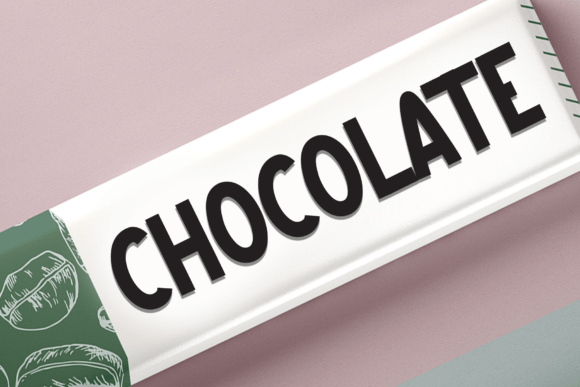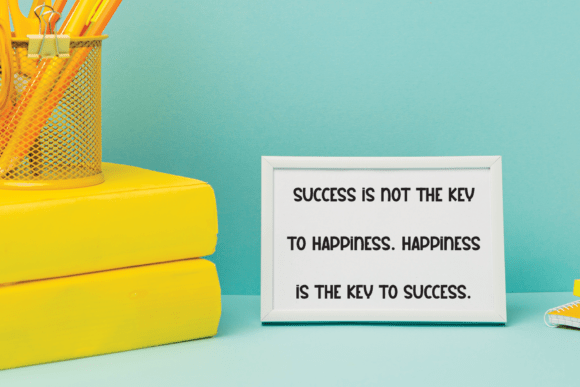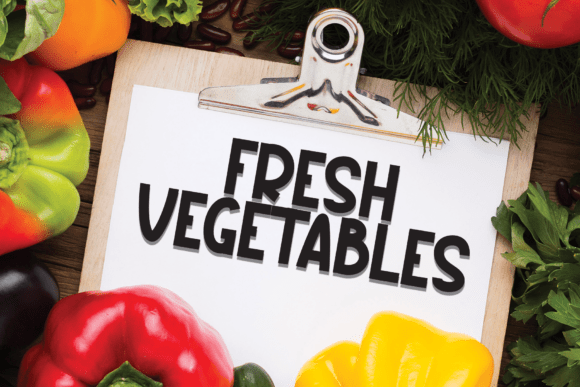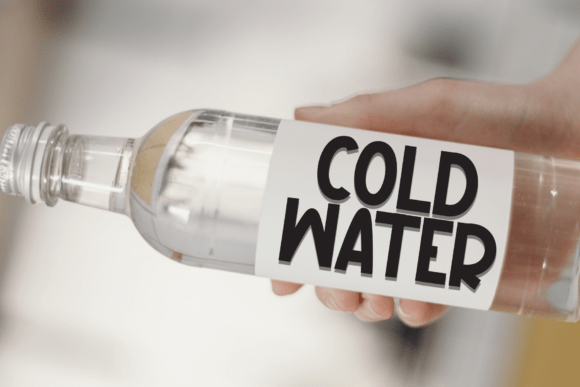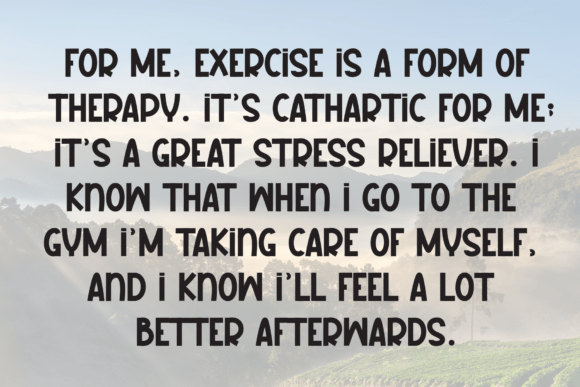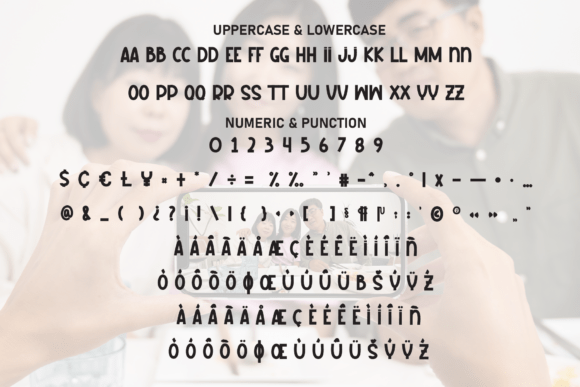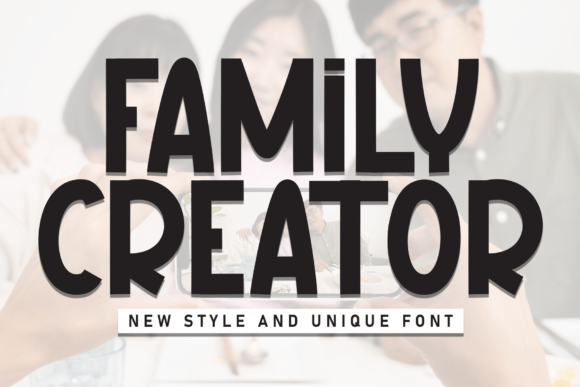
Introducing Family Creator Font: The Perfect Blend of Bold, Playful, and Modern
Are you tired of using the same old fonts for your design projects? Look no further! Family Creator Font is here to revolutionize the way you create and add a touch of personality to your designs. This bold and playful font is perfect for designers, crafters, and DIY enthusiasts who want to add a warm and inviting tone to their projects.
What Makes Family Creator Font Stand Out?
Family Creator Font boasts a clean cut and modern vibe that sets it apart from other fonts. Its chunky characters and upright stance make it perfect for headlines, posters, family scrapbooks, YouTube thumbnails, or any project that needs a bold and eye-catching font. The unique vertical style adds a sense of personality and originality to your designs, making them truly stand out.
Family Creator Font is a versatile font that can be used for a wide range of design projects. Here are some ideas to get you started:
• Headlines and Posters: Use Family Creator Font to create bold and eye-catching headlines and posters that grab attention.
• Family Scrapbooks: Add a personal touch to your family scrapbooks with this warm and inviting font.
• YouTube Thumbnails: Create thumbnails that stand out and entice viewers to click on your video.
• Crafting and DIY Projects: Use Family Creator Font to add a touch of personality to your crafting and DIY projects, such as signs, cards, and gift tags.
Why Choose Family Creator Font?
Here are just a few reasons why Family Creator Font is a must-have for designers and crafters:
• Unique and Original: Family Creator Font has a unique vertical style that adds a sense of personality and originality to your designs.
• Easy to Read: The chunky characters and upright stance make it easy to read, even at small sizes.
• Versatile: Use Family Creator Font for a wide range of design projects, from digital to print.
• Warm and Inviting: This font has a warm and inviting tone that’s perfect for creating designs that feel personal and approachable.
Tips for Using Family Creator Font
Here are some tips for getting the most out of Family Creator Font:
• Use it as a Headline Font: Family Creator Font is perfect for headlines and titles. Use it to create bold and eye-catching text that grabs attention.
• Experiment with Colors: Try pairing Family Creator Font with different colors to create a unique and eye-catching design.
• Add Texture and Patterns: Add texture and patterns to your design to give it a more organic and handmade feel.
• Mix and Match: Don’t be afraid to mix and match Family Creator Font with other fonts to create a unique and interesting design.
Family Creator Font is a bold and playful font that’s perfect for designers, crafters, and DIY enthusiasts who want to add a touch of personality to their designs. With its clean cut and modern vibe, chunky characters, and upright stance, it’s perfect for a wide range of design projects. Whether you’re creating headlines, posters, family scrapbooks, or YouTube thumbnails, Family Creator Font is sure to make your designs stand out. So why wait? Give Family Creator Font a try today and see the difference it can make in your designs!